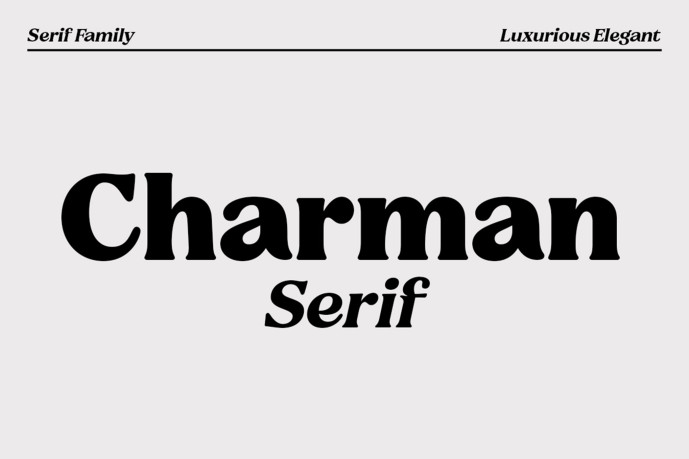
Charman Serif Font
The Charman Serif Font Pack is an elegant serif font available in 20 different weights. Designed to reflect nature, it creates a soft, natural expression. This concept is driven towards a usability focus, to serve as both a bold and sophisticated communicator. The Charman Serif character set incorporates many open font features—additional symbols, both standard and optional, as well as upper and lower case punctuation—resulting in a stable character set ready to handle projects of any size. I hope you enjoy using the Charman Serif font and find it a perfect addition to your font collection!
This typeface family is the result of sincere hard work, making it accessible and enjoyable to use.